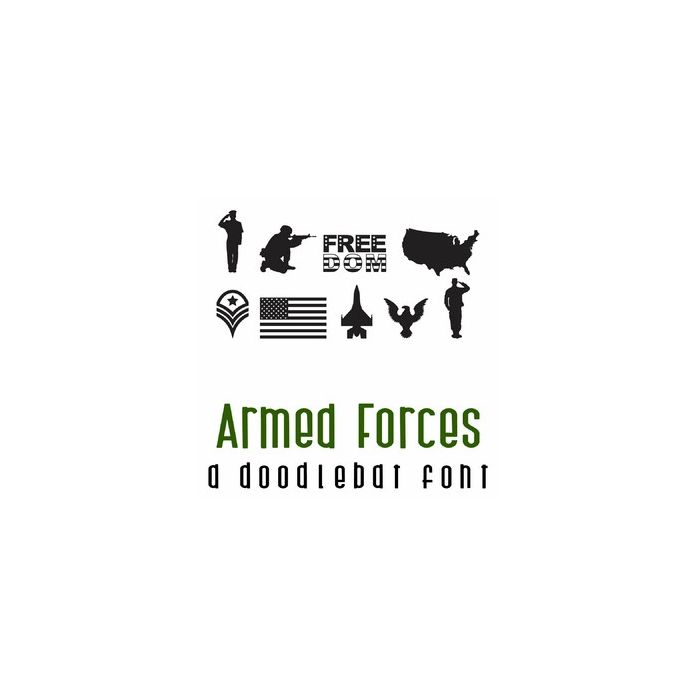
This doodlebat font features 26 armed forces and patriotic imagery. Perfect for cards, crafts, gifts, decor, scrap book pages, planner stickers and more!